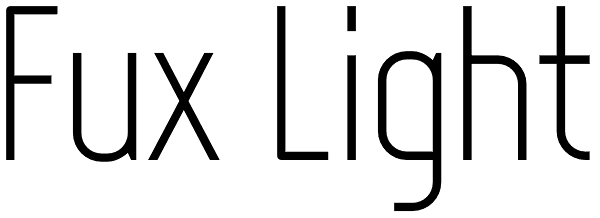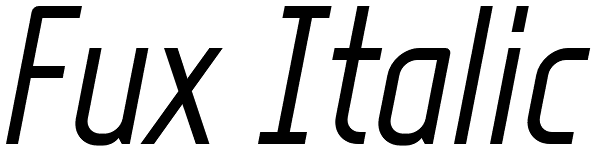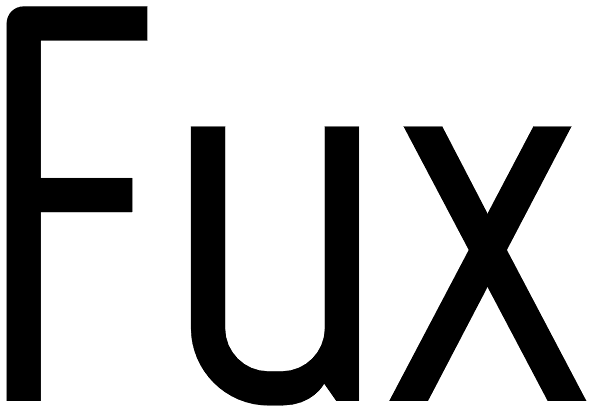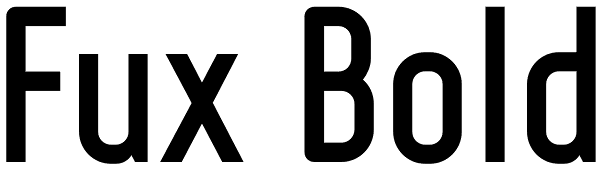
Fux
Fux is a condensed, neutral looking font, that features and extended ligature set, small caps, old style numbers and stylistic alternates, that should help to fulfill all your type setting needs. Is perfect to be used as big display and title font...